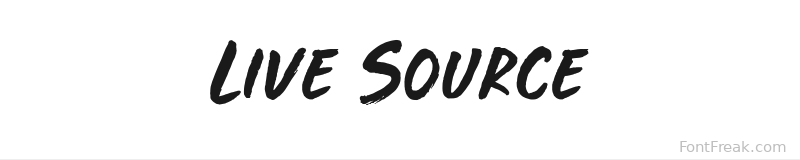
Live Source
The Live Source font by BLKBK Fonts is a captivating handwritten style that brings a personal touch to any design project. As a display font, it boasts a unique character that sets it apart from traditional typefaces. The strokes are varied in weight, creating an engaging contrast that adds depth and dimension. Each letter features distinct, flowing curves and organic shapes, giving it an inviting and artistic flair. The spacing between the characters is appropriately balanced, ensuring readability while maintaining a dynamic appearance.
This font is particularly well-suited for a variety of applications. It can elevate wedding invitations with its romantic and whimsical aesthetic, making each invitation feel bespoke and memorable. For restaurant menus, the Live Source font adds a touch of creativity that can enhance the overall dining experience, enticing customers with its charm. Additionally, it works wonderfully for movie posters, where its expressive style can capture the essence of the film and draw in an audience. Small business owners looking to establish a unique brand identity will also find this font invaluable for crafting logos and promotional materials that resonate with their target market.